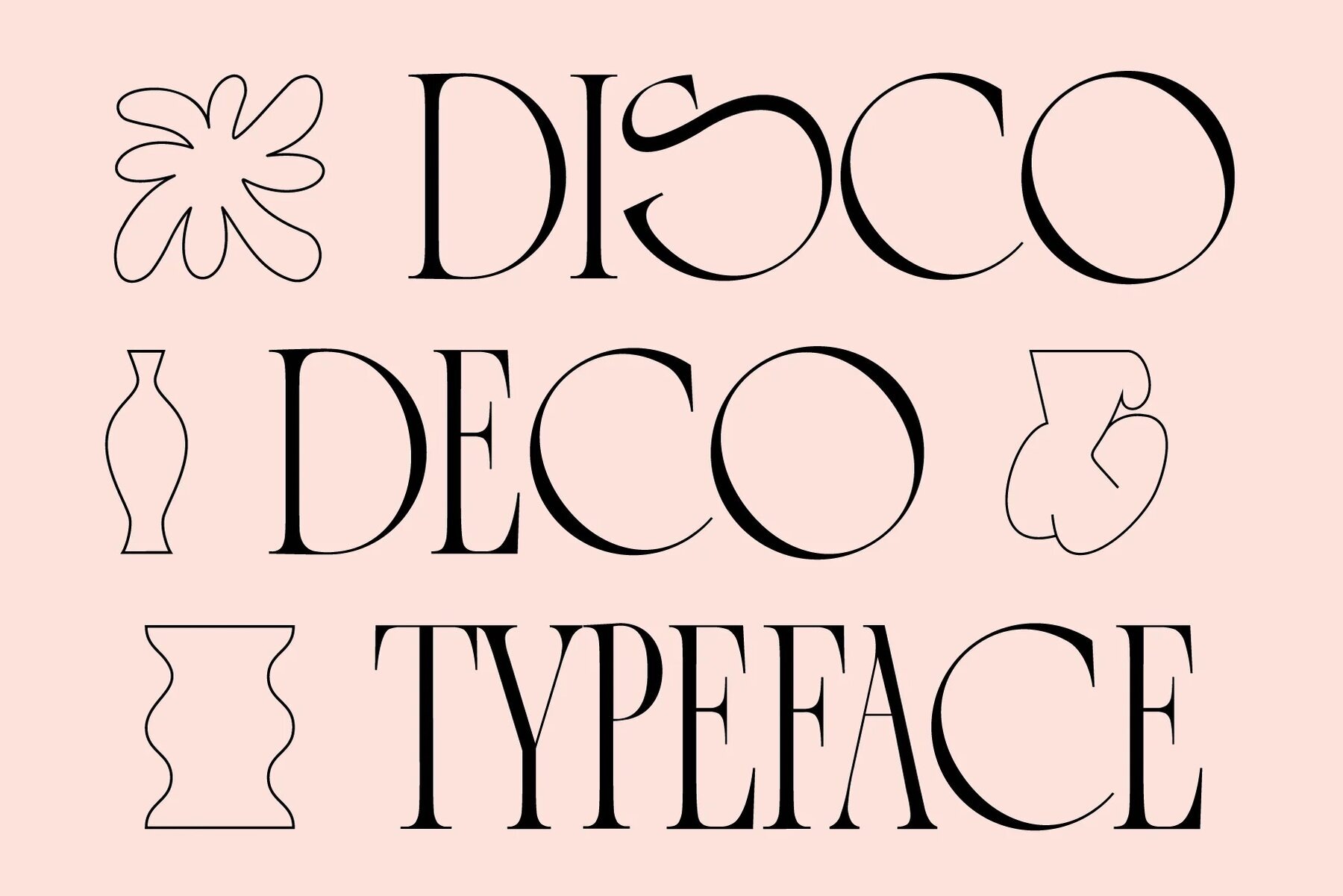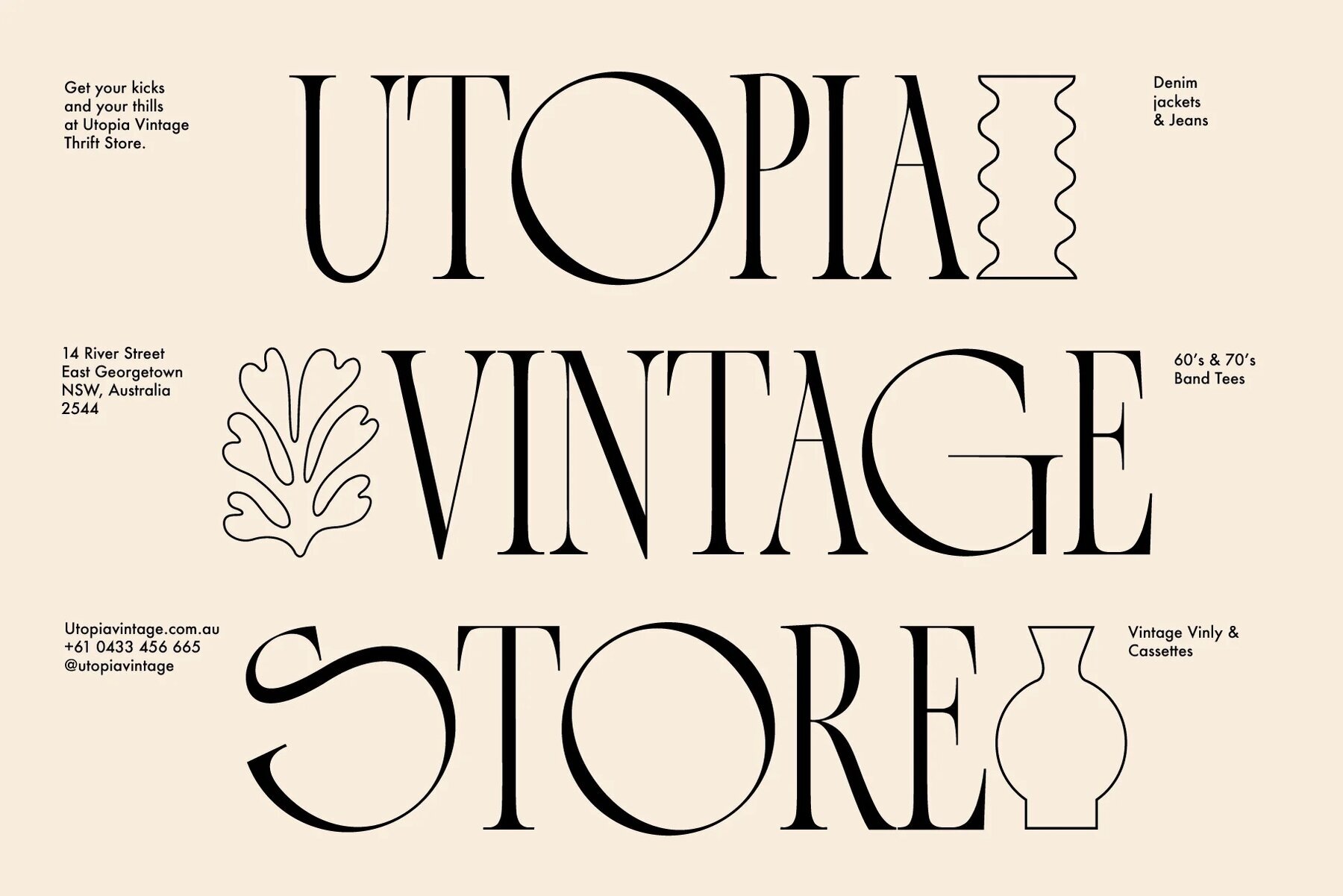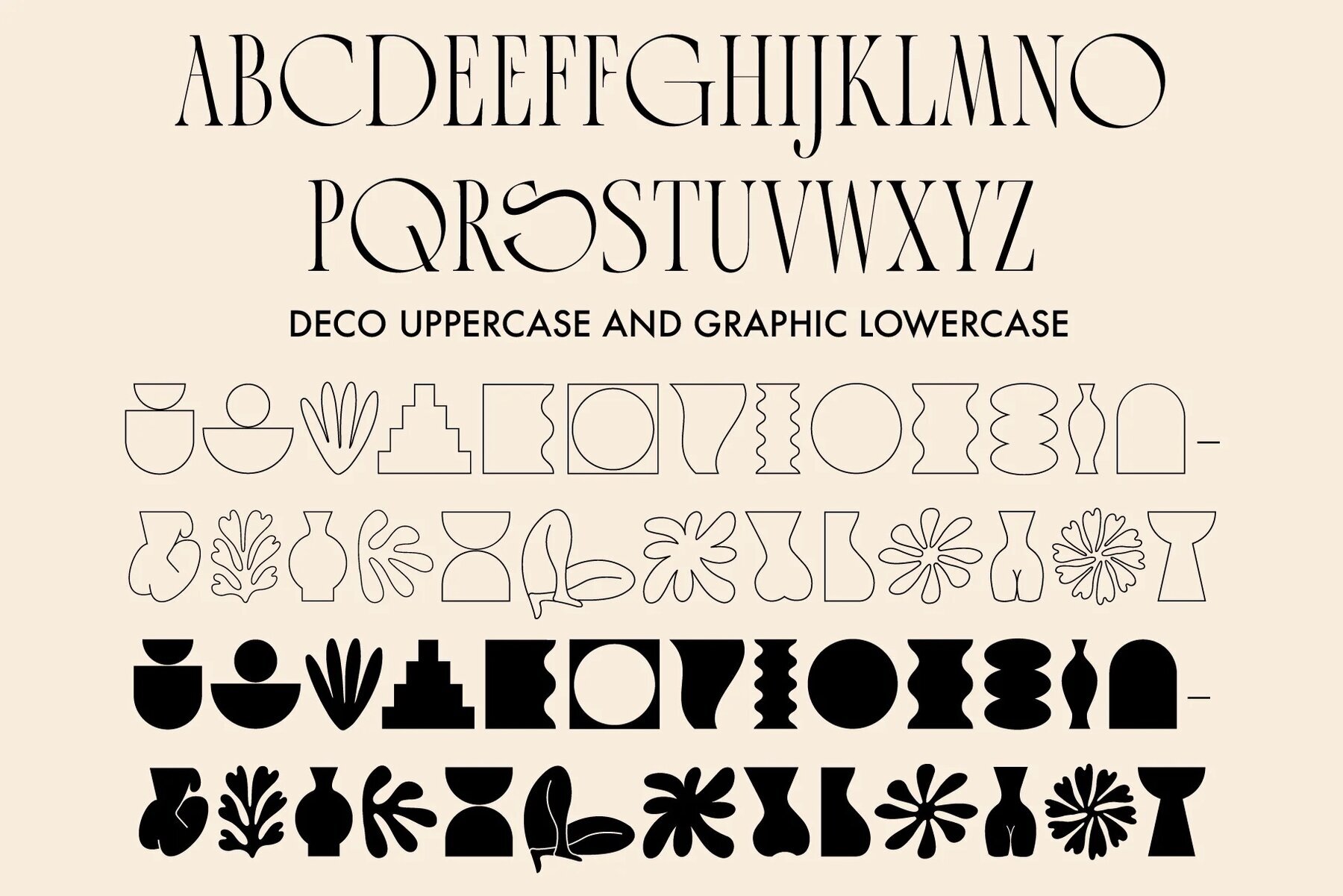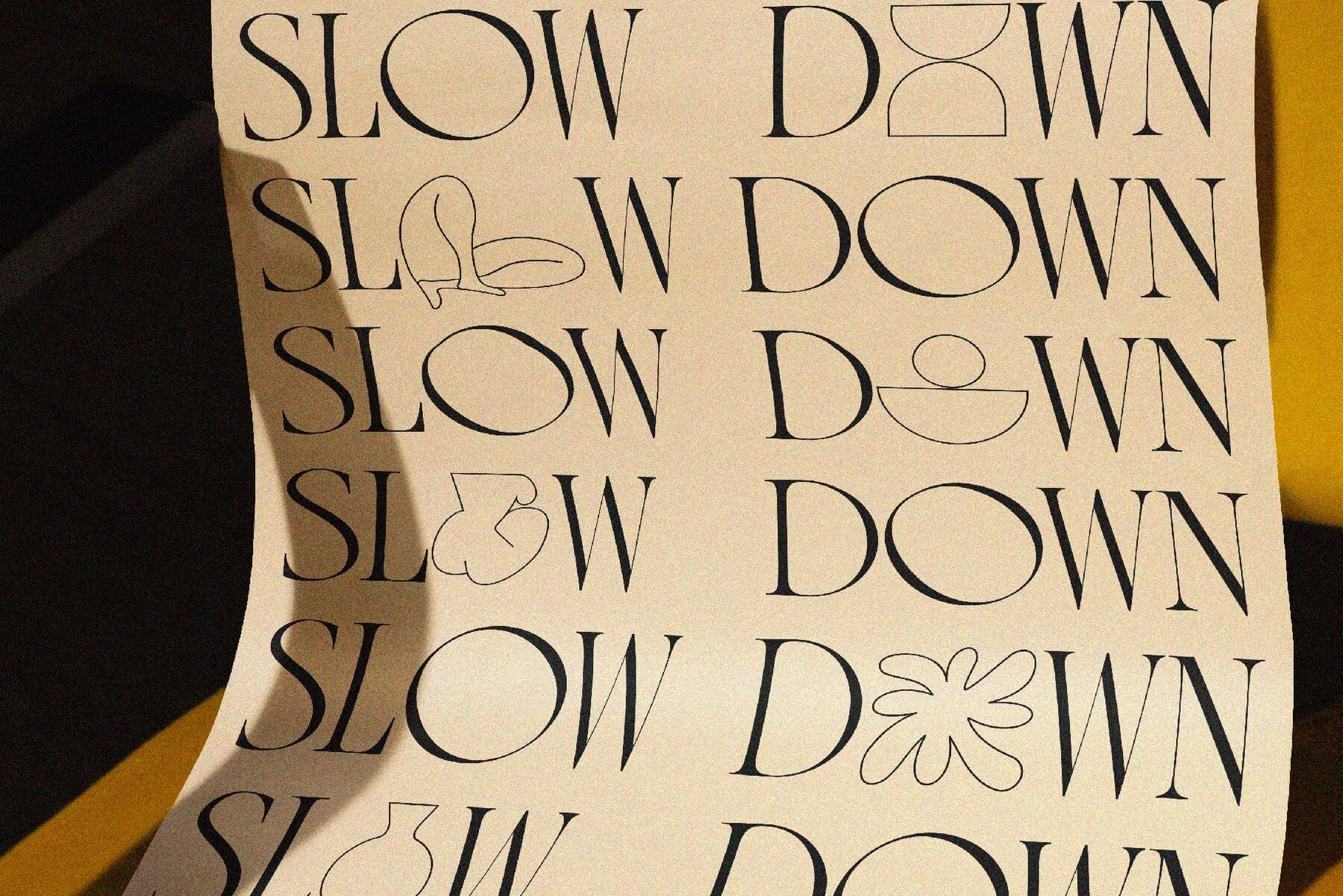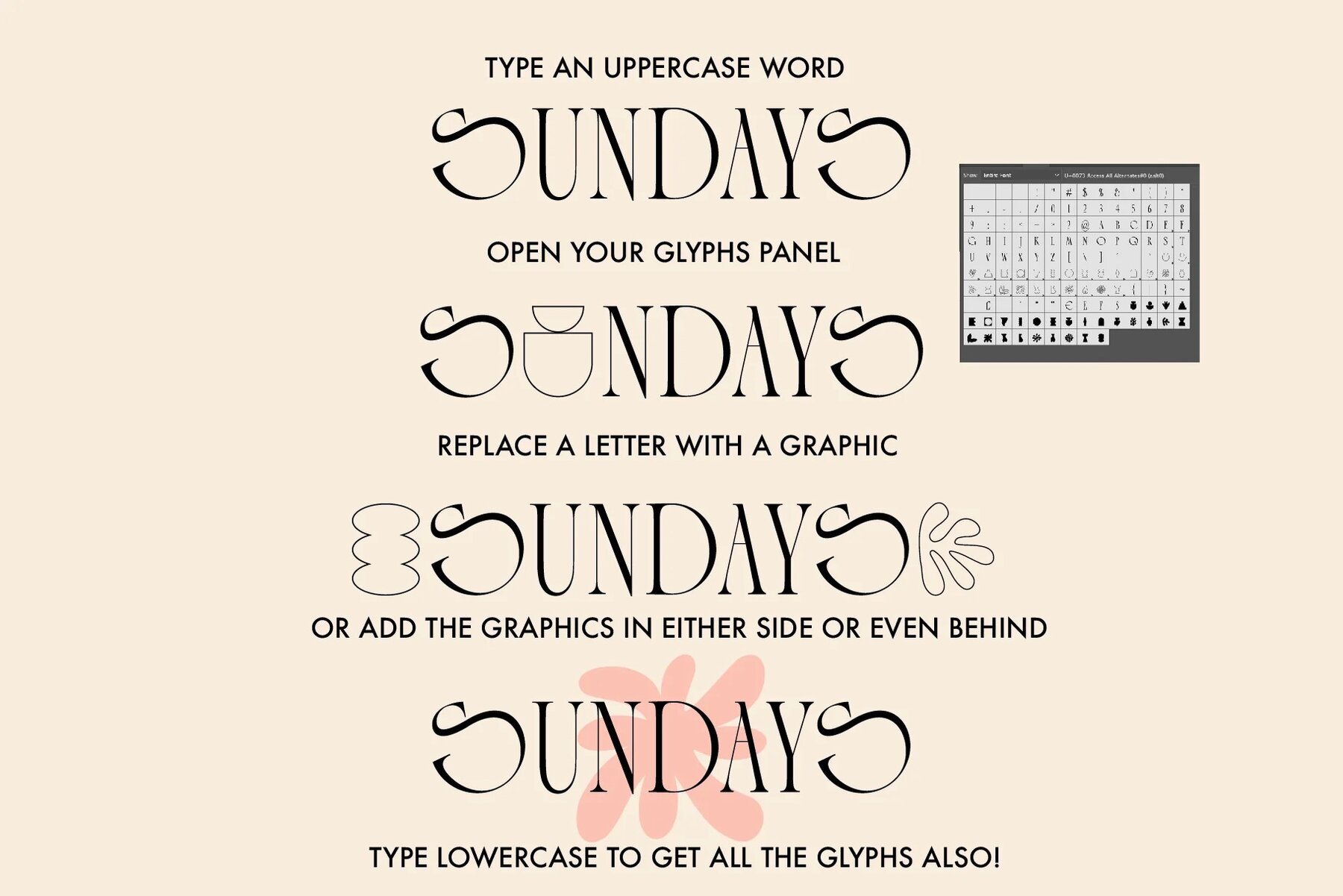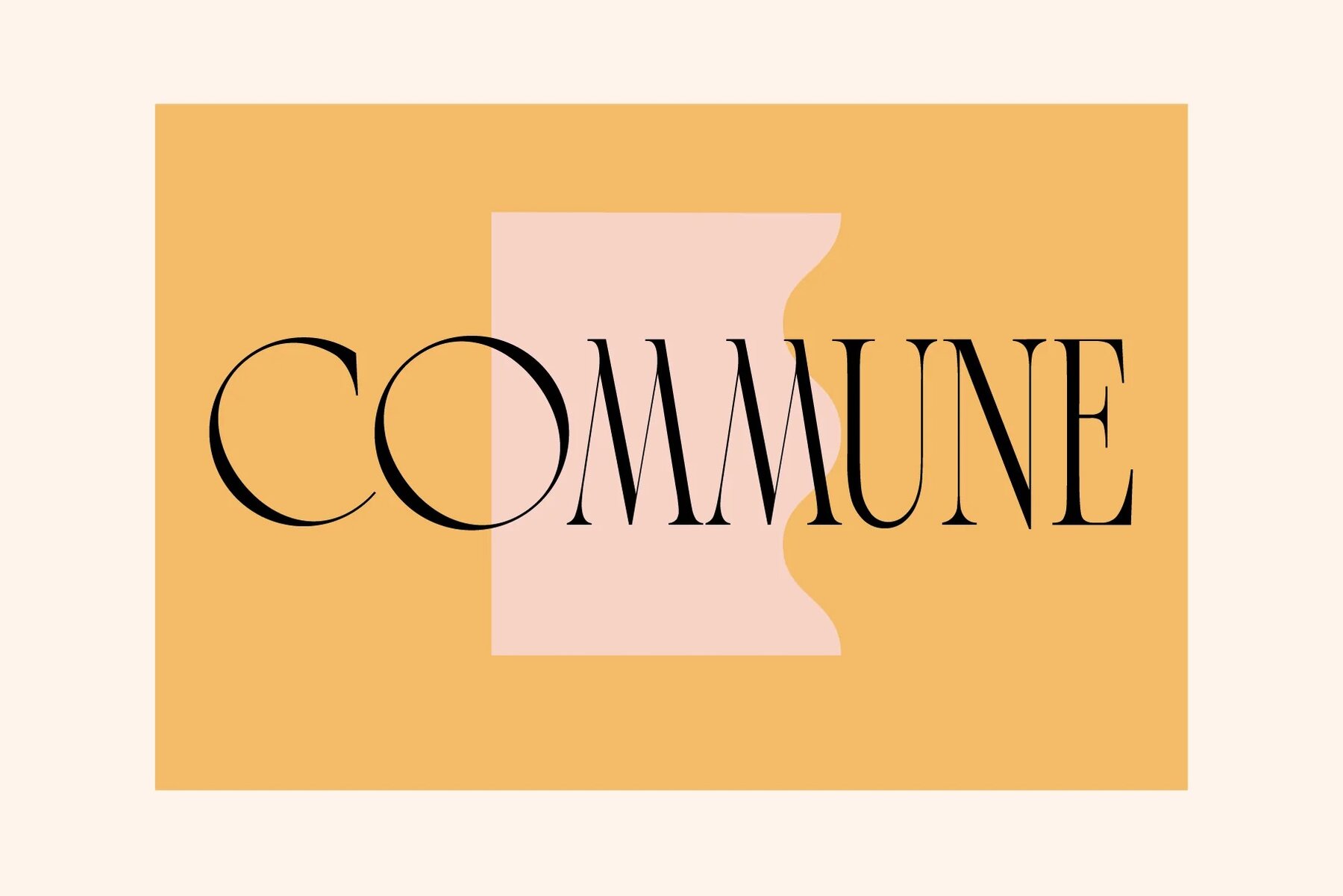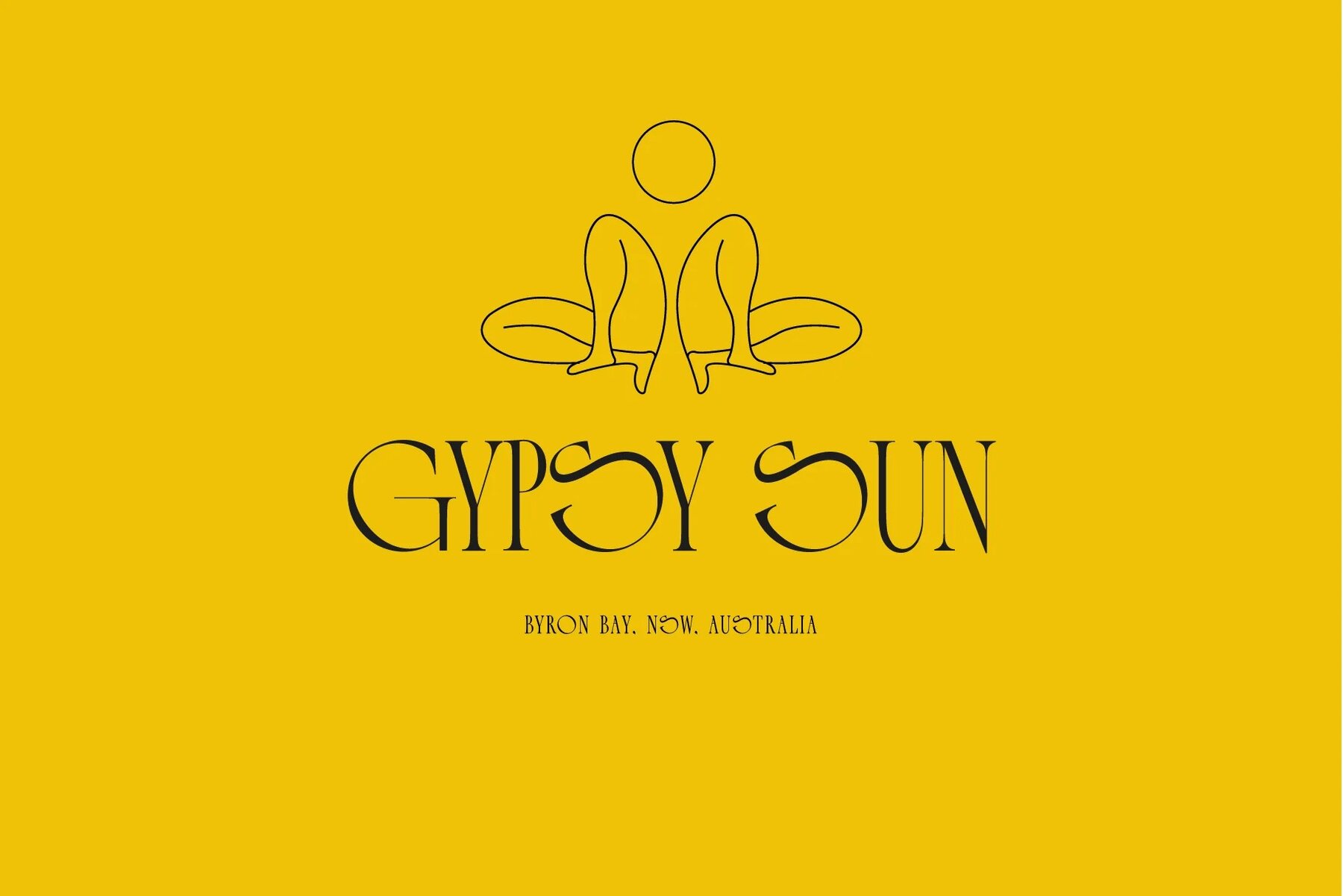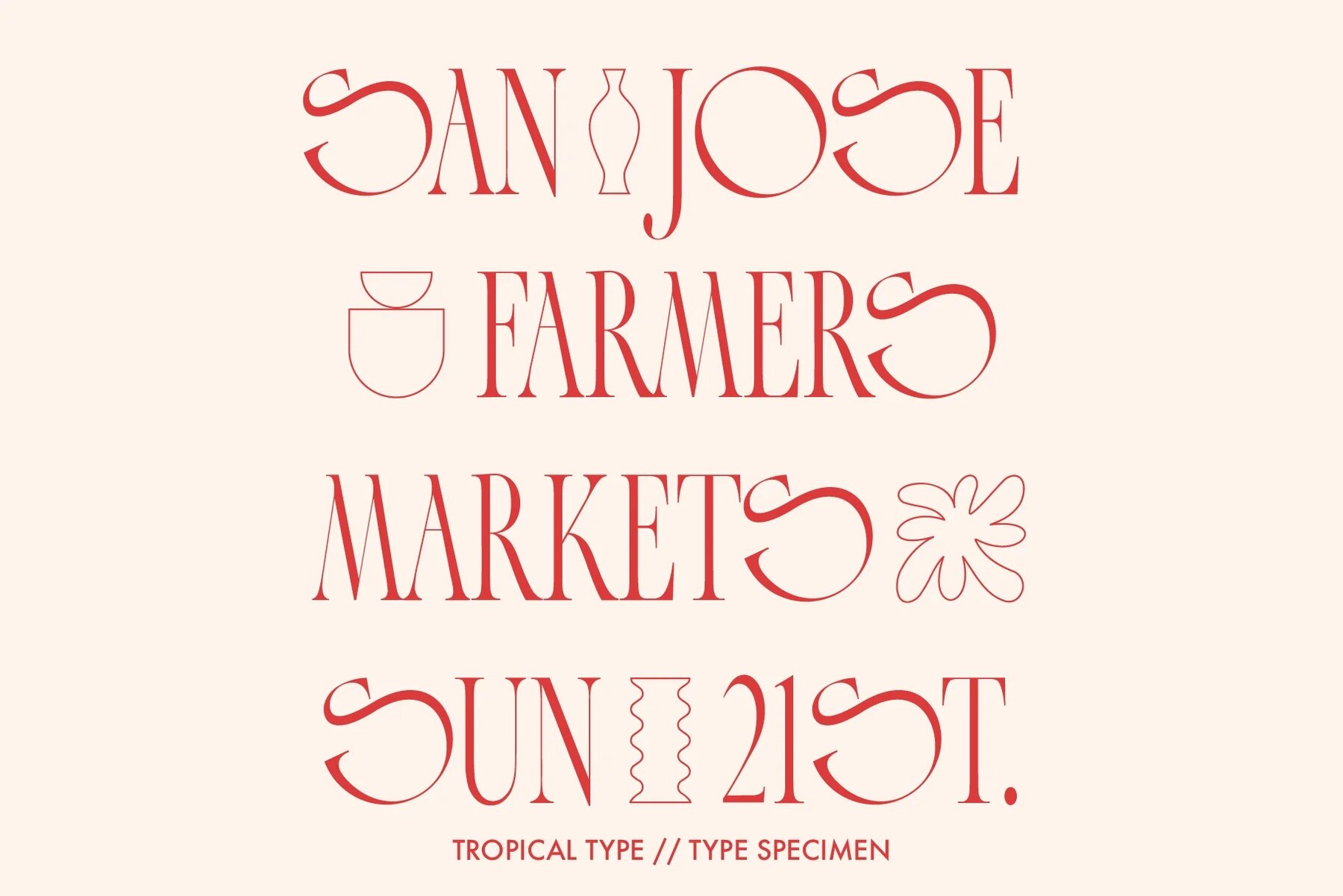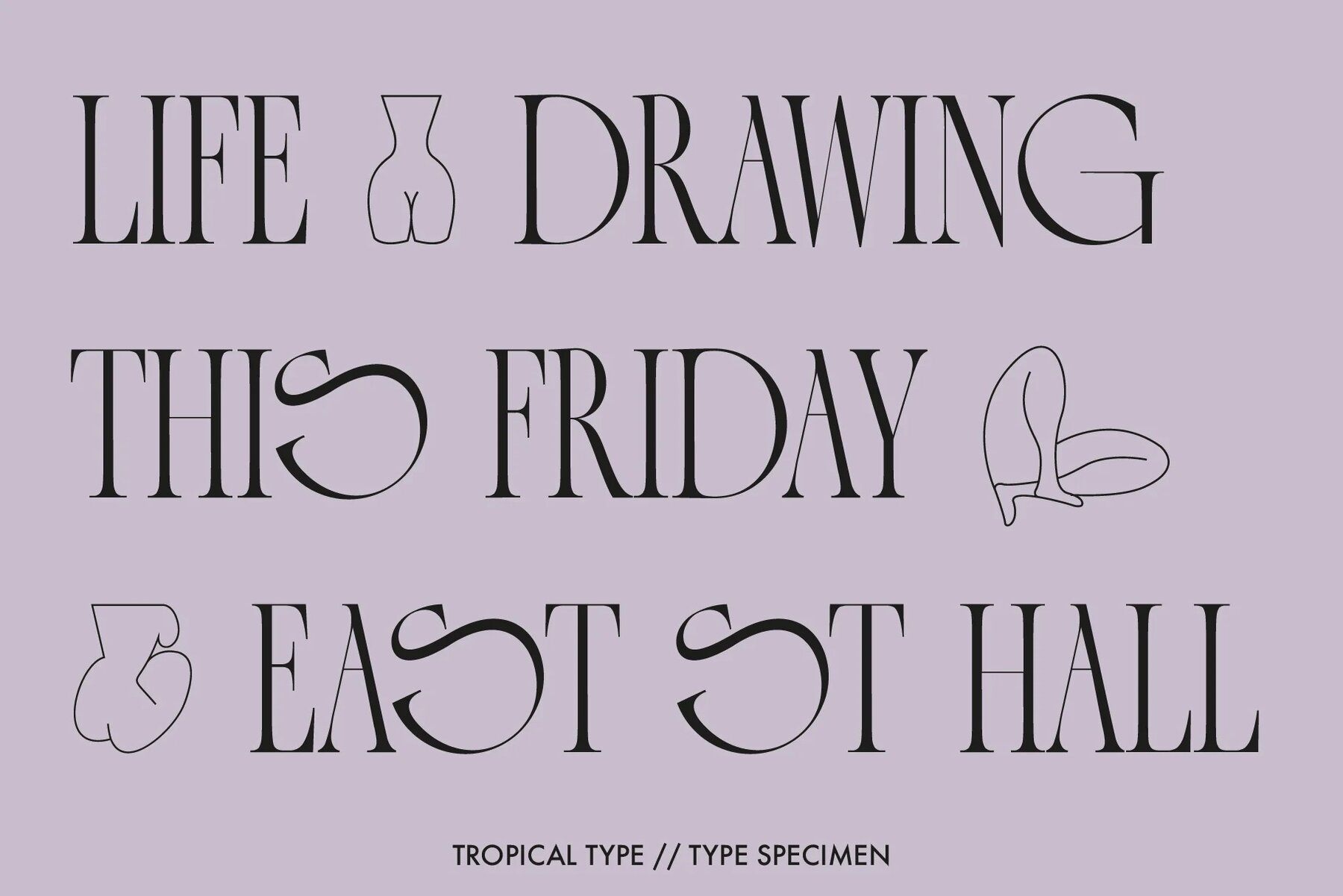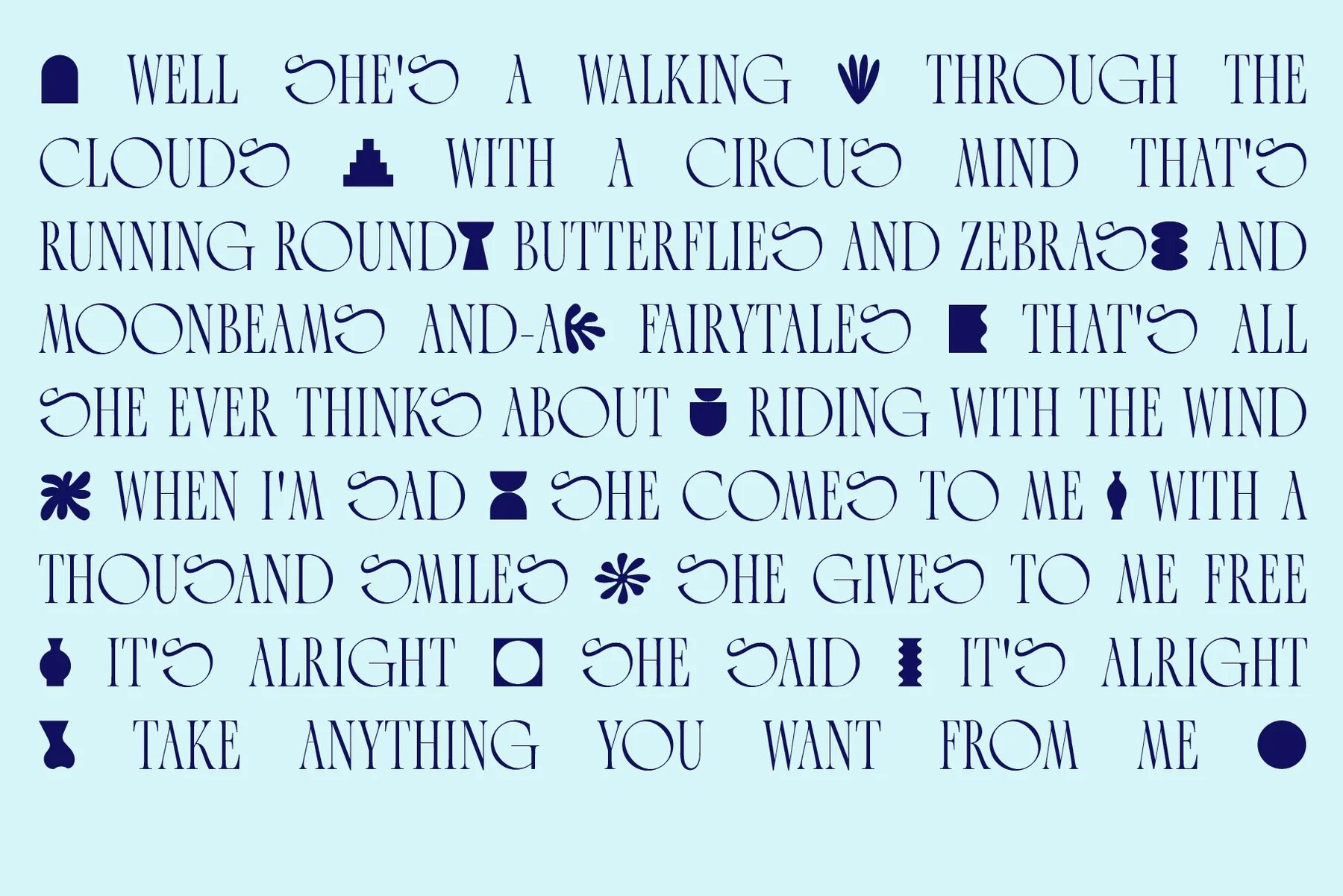
Disco Deco Font
Disco Deco Graphic Font brings a burst of fun and creativity to your designs. Inspired by the Art Deco movement, this font is perfect for creating unique and vibrant projects. The best part? It includes a full set of lowercase graphic symbols that you can seamlessly integrate with your typography. Whether you want to replace letters entirely, position the graphics alongside them, or set them behind, Disco Deco offers endless possibilities.
To get started, simply open the glyphs panel in your software to access the full range of these stylish graphics. Disco Deco's versatility makes it ideal for crafting funky posters, eye-catching logos, and much more. Additionally, the font supports non-English glyphs, making it a versatile choice for international projects. Explore the creative potential of Disco Deco and add a dash of retro flair to your designs.